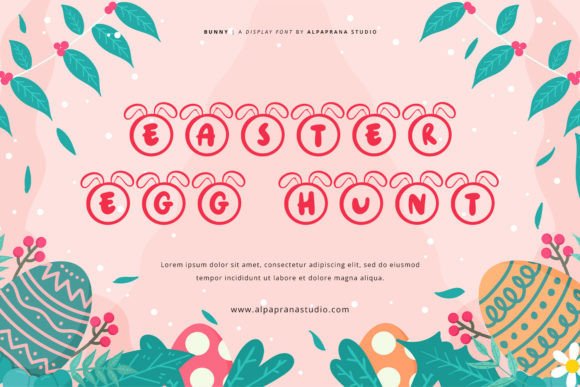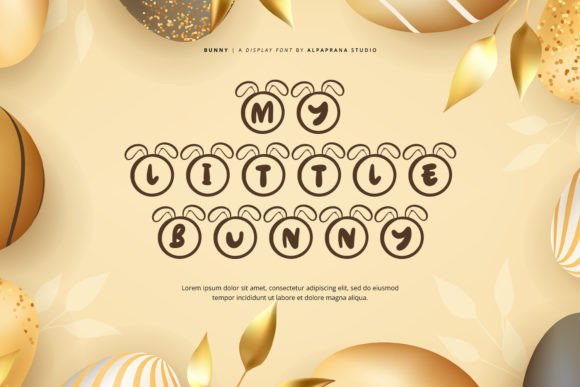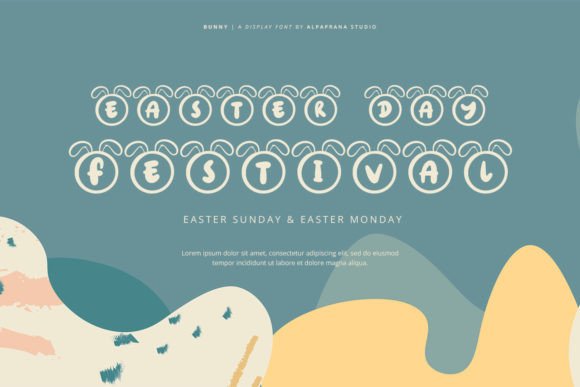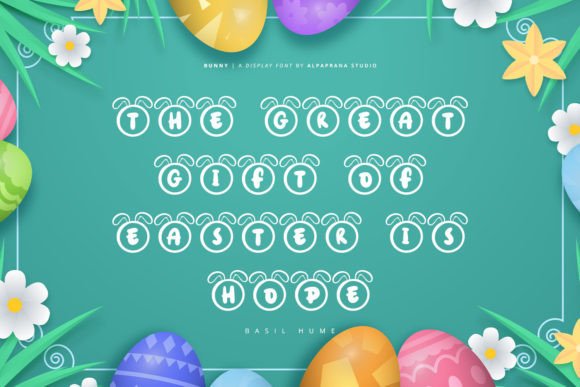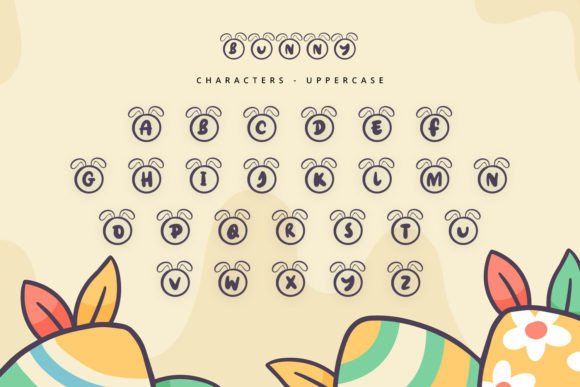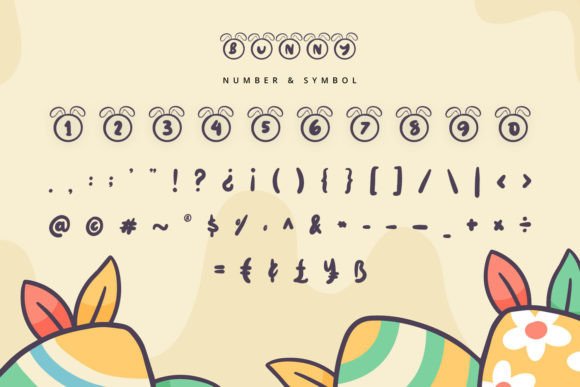
Step into a World of Whimsy with the Bunny Font
Have you ever stared at a blank page, pencil in hand, trying to conjure up the perfect font to match your creative vision? I know I have. And sometimes, all it takes is one glance at a quirky design to spark an idea. For me, that moment came when I stumbled upon the Bunny Font – a playful display font that brings a smile to my face every time I see it.
Designed to evoke a sense of fun and imagination, the Bunny Font features letters in small circles adorned with bunny ears. This charming design makes it perfect for anything from children’s books to greeting cards, inviting the reader to dive into a world of whimsy and playfulness. As a designer, I can appreciate the value of this font in adding a touch of personality to any project.
Bunny Font Key Features
- Font Family: Bunny Font is a sans-serif font family designed specifically for digital use.
- Character Set: The font includes a wide range of characters, including Latin, Cyrillic, and Greek alphabets, as well as various symbols and punctuation marks.
- Unique Characteristics: Bunny Font features a playful, rounded design with a distinctive bunny ear motif in the letter ‘B’, making it a standout choice for creative projects.
Bunny Font Review
I recently had the chance to work with the Bunny Font, and I must say it’s a unique addition to any design project. Here are my honest thoughts:
- The Bunny Font’s playful and whimsical feel is perfect for children’s books, cartoon-style graphics, or even Easter-themed designs.
- The font’s rounded edges and soft lines create a friendly and approachable atmosphere, making it ideal for branding and marketing materials.
- The font is highly customizable, allowing designers to adjust the size, color, and spacing to fit their specific needs.
- The Bunny Font may not be the best choice for formal or professional designs, as its playful nature may come across as unprofessional.
- The font’s simplicity may make it prone to readability issues when used in large blocks of text or at very small sizes.
- The font’s limited character set may not include all the characters you need for certain languages or special symbols.
Overall, the Bunny Font is a fun and versatile addition to any design project. While it may have some limitations, its unique personality and customization options make it a great choice for the right type of design.
For best results, use Bunny Font in titles and headings to create a playful and whimsical feel.
For best results, use Bunny Font in illustrations and graphics to create a fun and playful atmosphere.
For best results, use Bunny Font in presentations and documents to add a touch of whimsy and personality.
Bunny Font is ideal for:
– Children’s books and educational materials
– Party invitations and decorations
– Social media graphics and ads
– Whimsical branding and marketing materials
Alternatives to Bunny Font
Pacifico is a beautiful, elegant script font ideal for use in invitations, weddings, and other formal events. It’s perfect for creating a touch of sophistication and romance in your designs. Compared to Bunny Font, Pacifico is more refined and less playful, making it suitable for a wider range of applications.
Great Vibes is a modern, elegant script font that’s perfect for creating a sense of luxury and sophistication. It’s ideal for use in high-end branding, advertising, and packaging designs. Compared to Bunny Font, Great Vibes is more refined and less quirky, making it suitable for more formal designs.
Dancing Script is a playful, handwritten font that’s perfect for creating a sense of fun and whimsy in your designs. It’s ideal for use in children’s products, party invitations, and other playful applications. Compared to Bunny Font, Dancing Script is more energetic and less subtle, making it suitable for designs that need a bold statement.